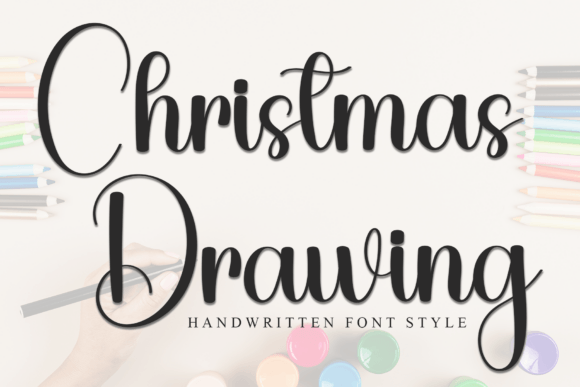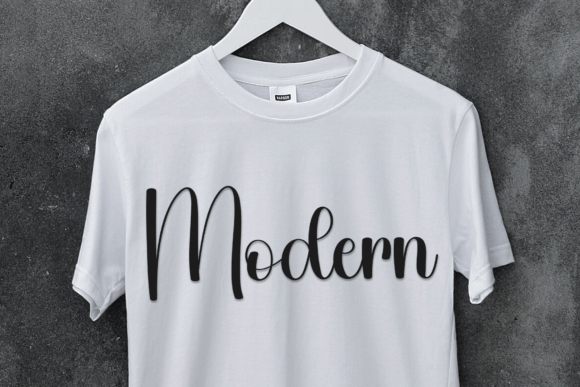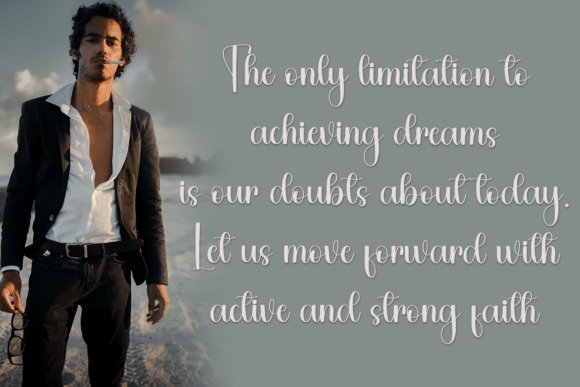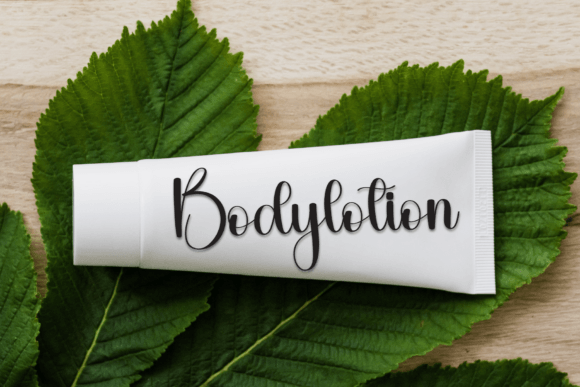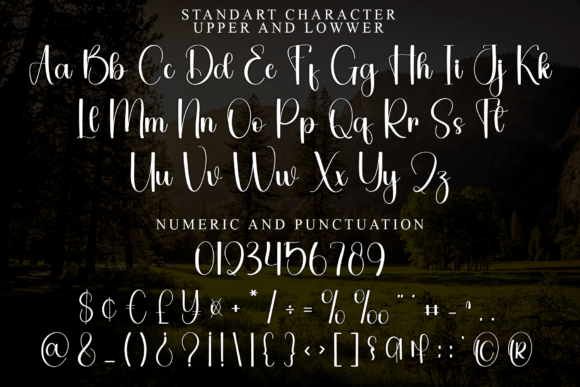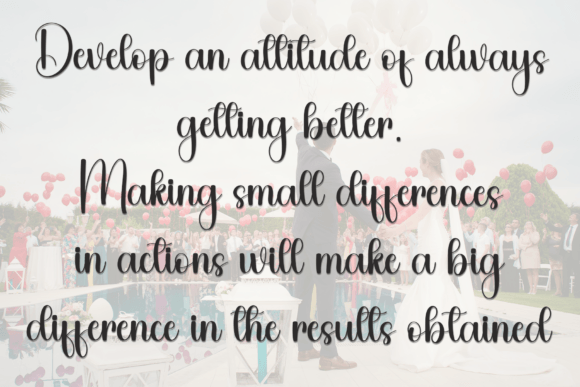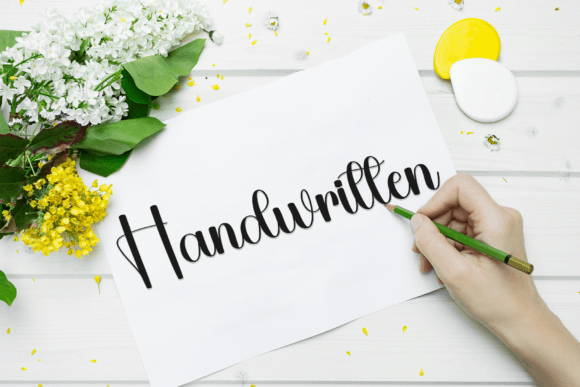
Deck the Halls with Hand-Drawn Charm
There’s something magical about the first moments of a new design project. You’re sipping your morning coffee, surrounded by scattered sheets of paper, and the excitement is palpable. The blank canvas is waiting for you to bring it to life, and the possibilities are endless. But what happens when you need to infuse your design with a dash of warmth and friendliness? That’s where the Christmas Drawing Font comes in.
This delightful font is more than just a pretty face; it’s a tool that can instantly elevate your personal projects, invitations, and social media graphics. Its charming, hand-drawn aesthetic adds a whimsical touch that’s sure to delight your audience. Whether you’re a seasoned designer or a creative beginner, the Christmas Drawing Font is an invaluable addition to your toolkit, offering a unique and playful way to express yourself.
Christmas Drawing Font Key Features
- Size: 200 glyphs, including characters, symbols, and ornaments
- Unique Characteristics: Hand-drawn, whimsical design with a playful feel, ideal for festive and holiday-themed projects
- Font Style: Script, Decorative, and Display
Christmas Drawing Font Review
I recently had the chance to work with the Christmas Drawing Font, and here’s my honest take on it. ✨ One of the things that stood out to me was the festive and playful vibe this font brings to any design project. It’s perfect for adding a touch of whimsy to holiday-themed materials like cards, invitations, and advertisements.
Another aspect I appreciate is the variety of characters and symbols included in the font. It’s not just limited to letters and numbers; you also get decorative elements like snowflakes, stars, and ornaments. This makes it super easy to create visually appealing designs without having to worry about finding additional graphics.
While the Christmas Drawing Font is a great addition to any designer’s toolkit, there are a few limitations to keep in mind.
- ⚠️ Limited font size flexibility: Some characters may not scale well, which can affect the overall design.
- ⚠️ Not suitable for formal designs: The playful nature of this font might not be the best fit for more serious or professional projects.
Overall, I’d say the Christmas Drawing Font is a great choice for designers looking to add some holiday cheer to their projects. Just be mindful of its limitations, and you’ll be golden!
The Christmas Drawing Font is ideal for creating festive and playful designs, such as:
- Christmas cards and invitations
- Holiday-themed social media graphics
- Party decorations and signs
Remember to experiment with different font sizes, colors, and effects to get the most out of the Christmas Drawing Font.
Alternatives to Christmas Drawing Font
The Great Vibes Font is a modern, handwritten font that can be used for various festive and non-festive designs. It’s ideal for adding a touch of elegance and sophistication to your designs. Compared to Christmas Drawing Font, Great Vibes Font is more versatile and can be used for different occasions, not just Christmas. It has a more refined and sophisticated look, making it suitable for high-end designs.
The Carolyna Pro Font is a elegant, modern script font that’s perfect for adding a touch of luxury to your designs. It’s ideal for wedding invitations, holiday cards, and other special occasion designs. Compared to Christmas Drawing Font, Carolyna Pro Font is more polished and refined, making it suitable for high-end designs. It’s also more versatile and can be used for different occasions, not just Christmas.
The Alex Brush Font is a elegant, handwritten font that’s perfect for adding a touch of warmth and personality to your designs. It’s ideal for wedding invitations, holiday cards, and other special occasion designs. Compared to Christmas Drawing Font, Alex Brush Font is more elegant and refined, making it suitable for high-end designs. It’s also more versatile and can be used for different occasions, not just Christmas.
How do I customize Christmas Drawing Font to fit my project’s style?
Christmas Drawing Font is a highly customizable font that allows you to adjust various parameters, such as color, size, and spacing. You can also use font editing software, such as Adobe Illustrator or FontForge, to modify the font’s design and create custom variations.